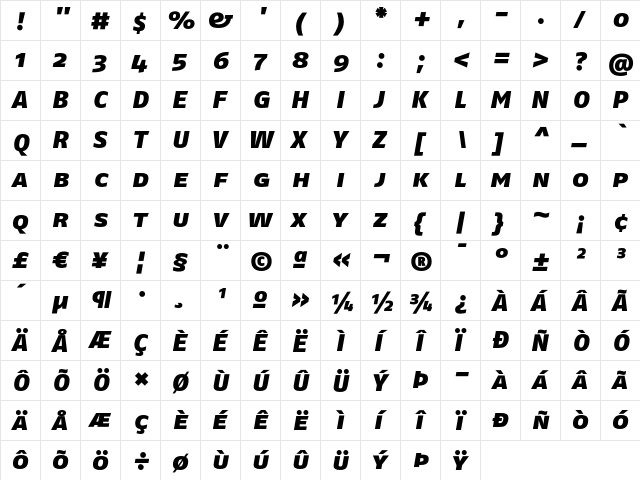
FagoEx BlackItalicCaps
Design Context for FagoEx Typeface
FagoEx takes a measured approach to typography — its balanced proportions and neutral character make it a reliable workhorse for both digital and print work. The dynamic lean of this cut emphasises speed and emphasis in any layout.
Pro Tip: Try FagoEx for annotation and caption copy alongside an upright companion — the contrast in angle creates a dynamic but ordered typographic system.